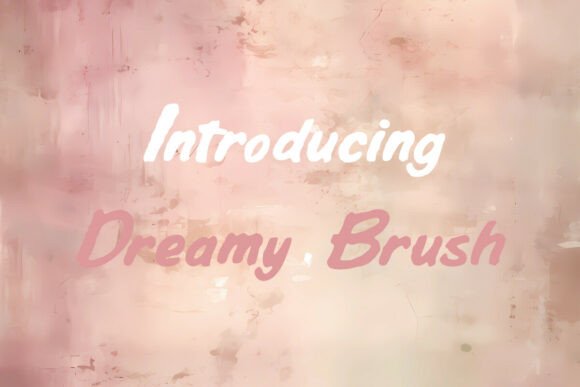
Where Creativity Meets Elegance: Unveiling the Dreamy Brush Font
Have you ever found yourself lost in a sea of creative possibilities, searching for that perfect font to elevate your designs? It’s a moment we’ve all been there – scrolling through countless options, trying to find the one that sparks inspiration and sets our work apart. For designers seeking to infuse their creations with a touch of whimsy and charm, look no further than the enchanting Dreamy Brush Font.
This beautifully crafted font is designed to seamlessly complement a wide range of projects, from bold shirts to eye-catching posters, and even creative Cricut projects. Its versatility and dynamism make it an invaluable asset for designers looking to take their branding initiatives and magazine features to new heights. With Dreamy Brush Font, you’ll be able to effortlessly add a touch of elegance to your SVG files and social media content, setting your work apart from the rest.
Dreamy Brush Font Key Features
- Unique Characteristics: Hand-drawn, brush-style font with a dreamy, whimsical feel
Dreamy Brush Font Review
As a designer, I was excited to dive into the Dreamy Brush Font and see what it had to offer. ✨ Here are my honest thoughts:
- The Dreamy Brush Font has a lovely, hand-drawn feel that’s perfect for creating a whimsical or vintage aesthetic. ✨
- The font is highly customizable, with a range of weights and styles to choose from. This makes it easy to adapt to different design projects. ✨
- The font is well-suited for use in digital and print designs, making it a versatile choice for designers. ✨
- The Dreamy Brush Font can appear a bit sloppy or inconsistent in certain contexts, particularly when used at small sizes. ⚠️
- The font may not be the best choice for projects that require a high level of precision or professionalism. ⚠️
- The font’s customizability can also be a double-edged sword, as it can be overwhelming to choose from so many options. ⚠️
Overall, I think the Dreamy Brush Font is a solid choice for designers looking to add a touch of whimsy or vintage flair to their projects. While it has its limitations, it’s a great option for those who want a highly customizable font with a unique feel.
Practical Application Guide for Dreamy Brush Font
For a more realistic effect, use the font in conjunction with a subtle gradient or shadow effect. This will give your text a more organic and dreamy feel.
For a more realistic effect, use the font in conjunction with a subtle texture or watercolor effect. This will give your text a more organic and dreamy feel.
For a more realistic effect, use the font in conjunction with a subtle background image or texture. This will give your text a more organic and dreamy feel.
The Dreamy Brush Font is perfect for creating invitations, greeting cards, and other paper crafts. It’s also great for adding a touch of whimsy and personality to your blog posts, social media graphics, and marketing materials.
Remember to experiment with different font sizes, colors, and effects to get the most out of the Dreamy Brush Font.
Alternatives to Dreamy Brush Font
The Great Vibes Font is a beautiful, handwritten font perfect for creating a whimsical and elegant look. It’s ideal for use in wedding invitations, quotes, and other creative projects. It has a more elegant and refined feel compared to Dreamy Brush Font, which is more casual and playful.